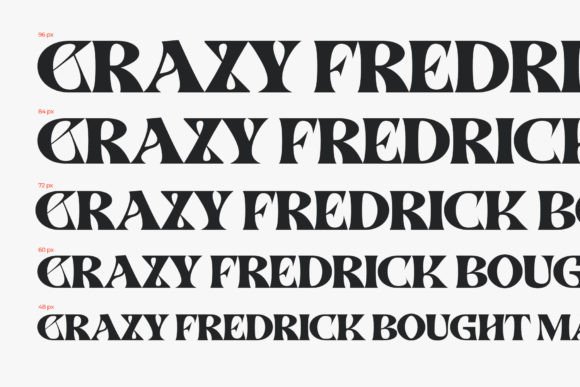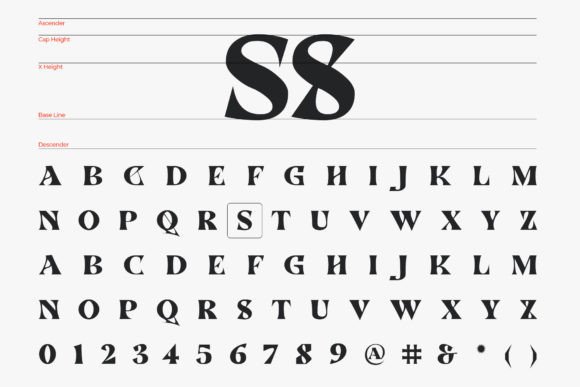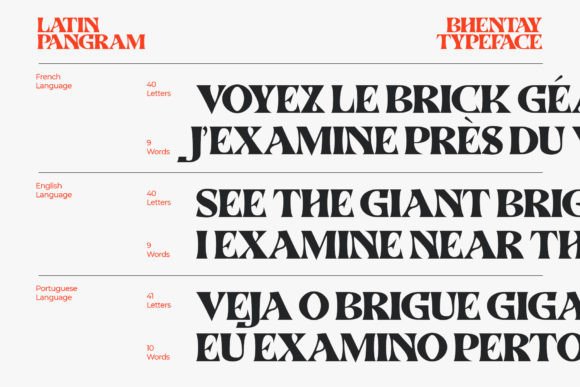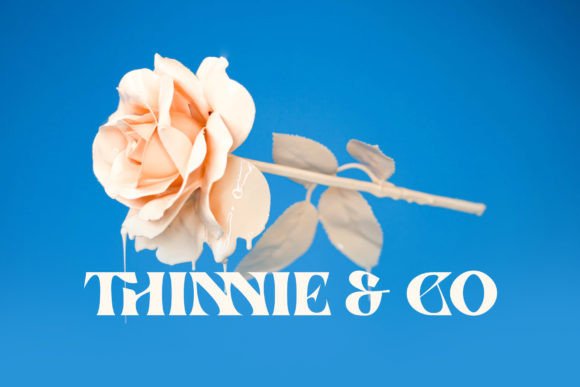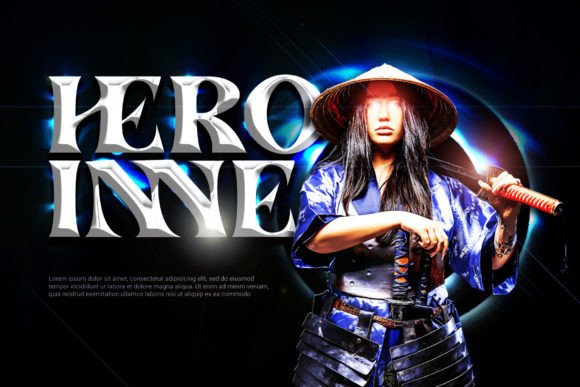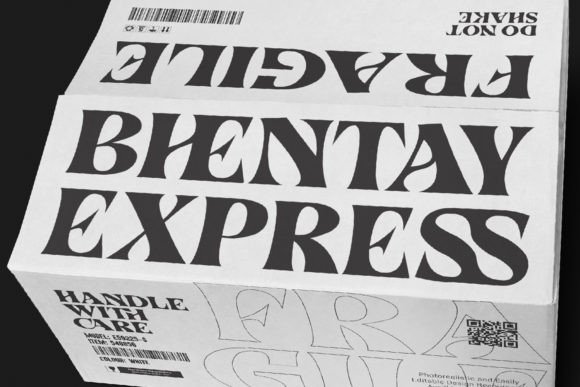
Bhentay Font: Elevate Your Designs with a Cool and Bold Display Font
In the world of typography, fonts play a crucial role in making or breaking a design. A perfect font can elevate your creation from ordinary to extraordinary. If you’re a designer or crafter looking for a font that can add a touch of uniqueness to your work, look no further than Bhentay Font. In this article, we’ll dive into the world of Bhentay Font, exploring its features, benefits, and uses.
What is Bhentay Font?
Bhentay Font is a cool and bold display font designed to make a statement. Its unique and modern design makes it perfect for a wide range of creative projects, from branding and advertising to packaging and digital media. With Bhentay Font, you can add a touch of sophistication and elegance to your designs, making them stand out from the crowd.
Key Features of Bhentay Font
- Bold and Eye-catching: Bhentay Font is a bold and eye-catching font that’s designed to grab attention. Its thick lines and sharp edges make it perfect for headlines, titles, and other display text.
- Unique and Modern: Bhentay Font has a unique and modern design that’s sure to elevate your designs. Its clean lines and simple shapes make it versatile and easy to use.
- High-quality: Bhentay Font is a high-quality font that’s designed to work perfectly in a variety of applications. Whether you’re working on a print project or a digital design, Bhentay Font is sure to deliver.
Benefits of Using Bhentay Font
So, why should you choose Bhentay Font for your next design project? Here are just a few benefits of using this amazing font:
- Adds Visual Impact: Bhentay Font is designed to make a statement. Its bold and eye-catching design adds visual impact to your designs, making them stand out from the crowd.
- Versatile: Bhentay Font is a versatile font that can be used in a wide range of creative projects. Whether you’re working on a branding project, a digital design, or a print project, Bhentay Font is sure to work perfectly.
Uses of Bhentay Font
Bhentay Font is a versatile font that can be used in a wide range of creative projects. Here are just a few ideas to get you started:
- Branding and Advertising: Use Bhentay Font to create eye-catching logos, headlines, and ad copy that grabs attention.
- Digital Media: Bhentay Font is perfect for digital media, including social media graphics, website headers, and more.
- Packaging: Add a touch of elegance and sophistication to your packaging designs with Bhentay Font.
- Print Design: Bhentay Font works perfectly in print design, including business cards, brochures, and more.
In conclusion, Bhentay Font is a cool and bold display font that’s perfect for designers and crafters looking to elevate their designs. With its unique and modern design, Bhentay Font adds visual impact and sophistication to any creative project. Whether you’re working on a branding project, a digital design, or a print project, Bhentay Font is sure to deliver. So why wait? Download Bhentay Font today and let yourself be amazed by the outcome generated.